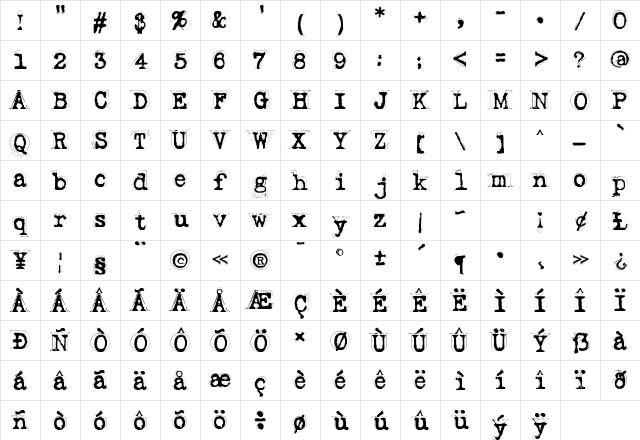
Fluoxetine Regular
Designer: Apostrophe (')
Design Context for Fluoxetine
Fluoxetine is a composed and adaptable typeface that performs quietly and consistently across a wide range of design contexts.